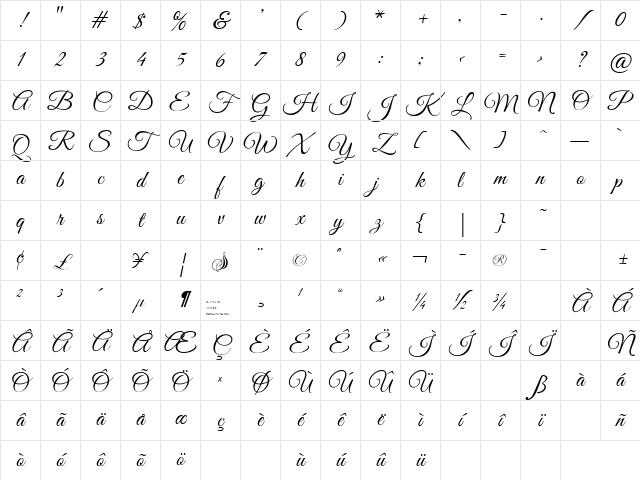
GoodVibrationsROB Script Free Font
GoodVibrationsROB Script
Style: Script
Design Context for GoodVibrationsROB
GoodVibrationsROB flows with the natural rhythm of handwritten lettering, making it ideal for designs that call for warmth and personal expression.
Font Pairing: Combine GoodVibrationsROB with a simple geometric sans for maximum contrast - the tension between flowing curves and clean structure is a classic typographic pairing.
Pro Tip: Use GoodVibrationsROB for short runs of text - names, titles, or taglines. Extended body copy in script faces tires the eye quickly.